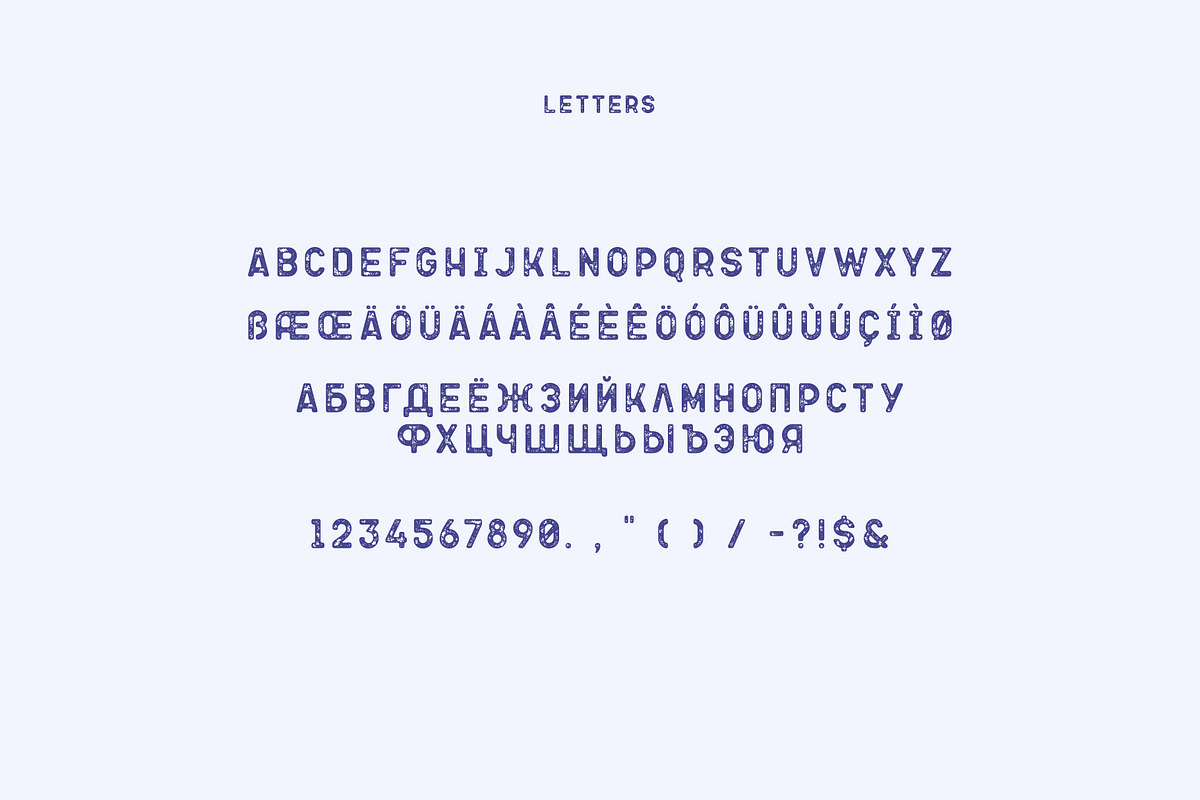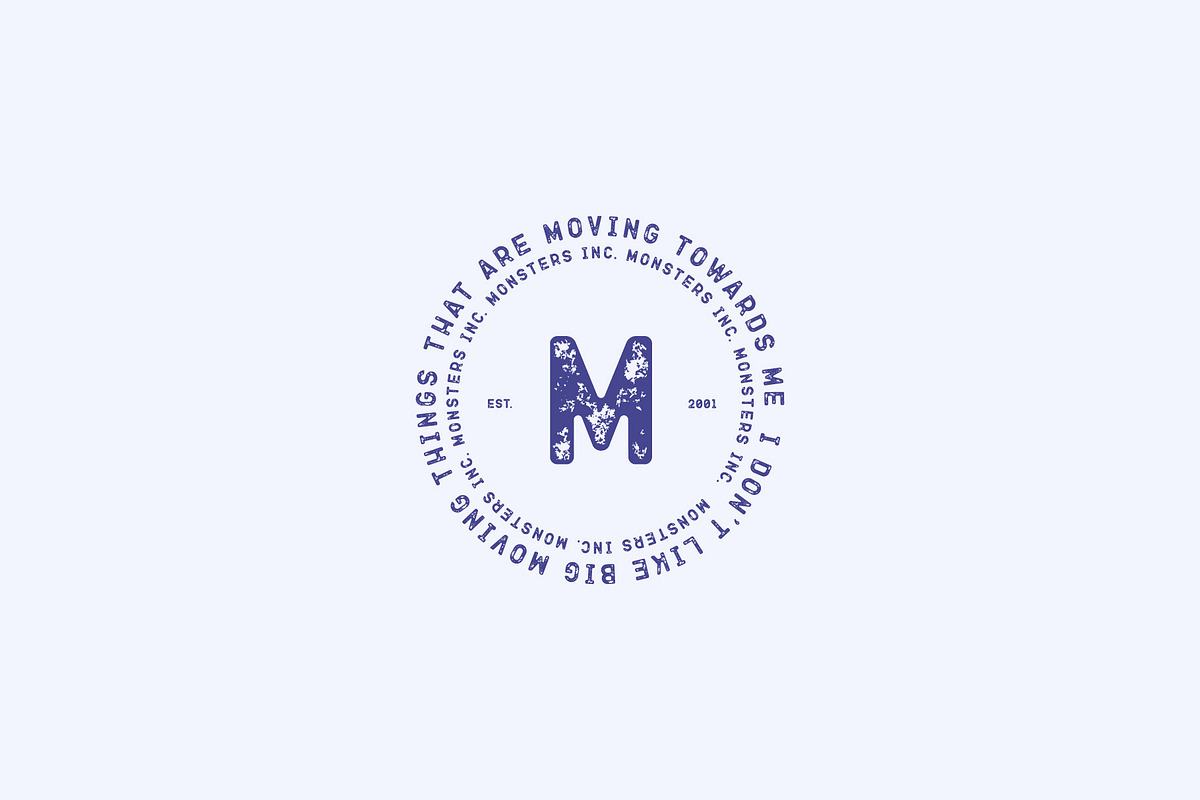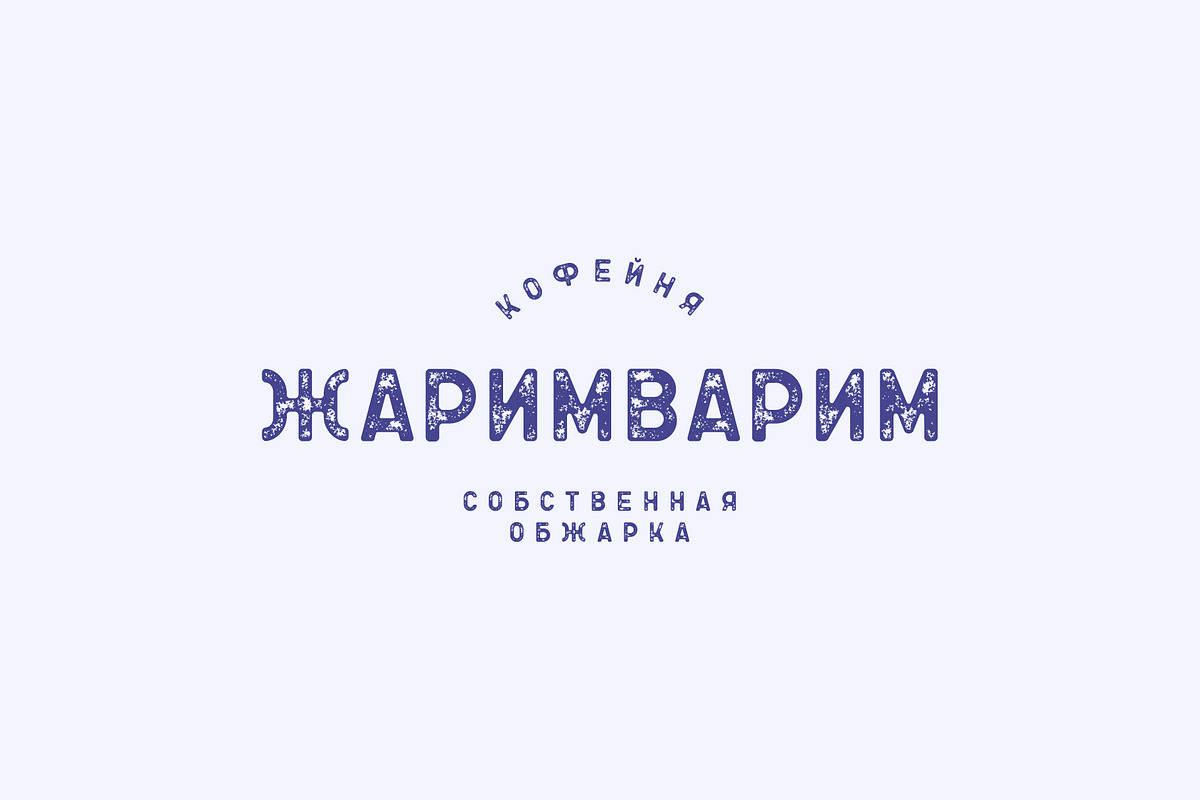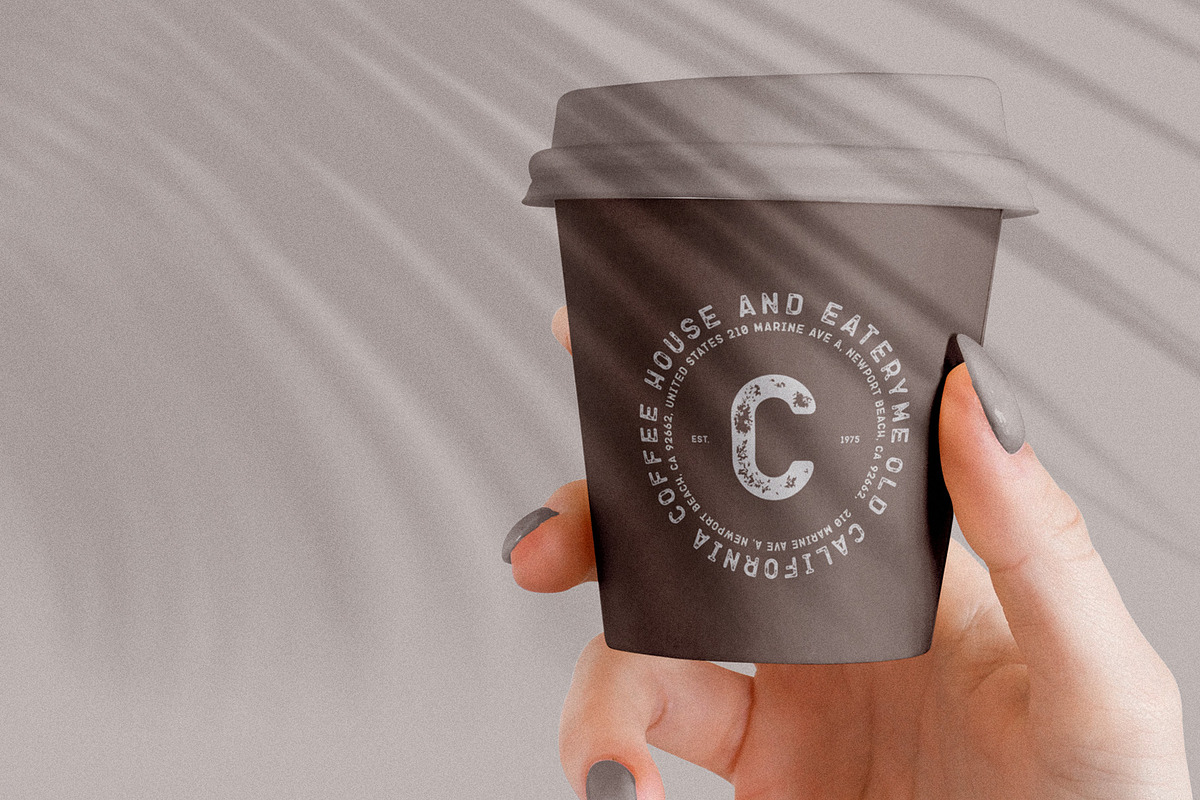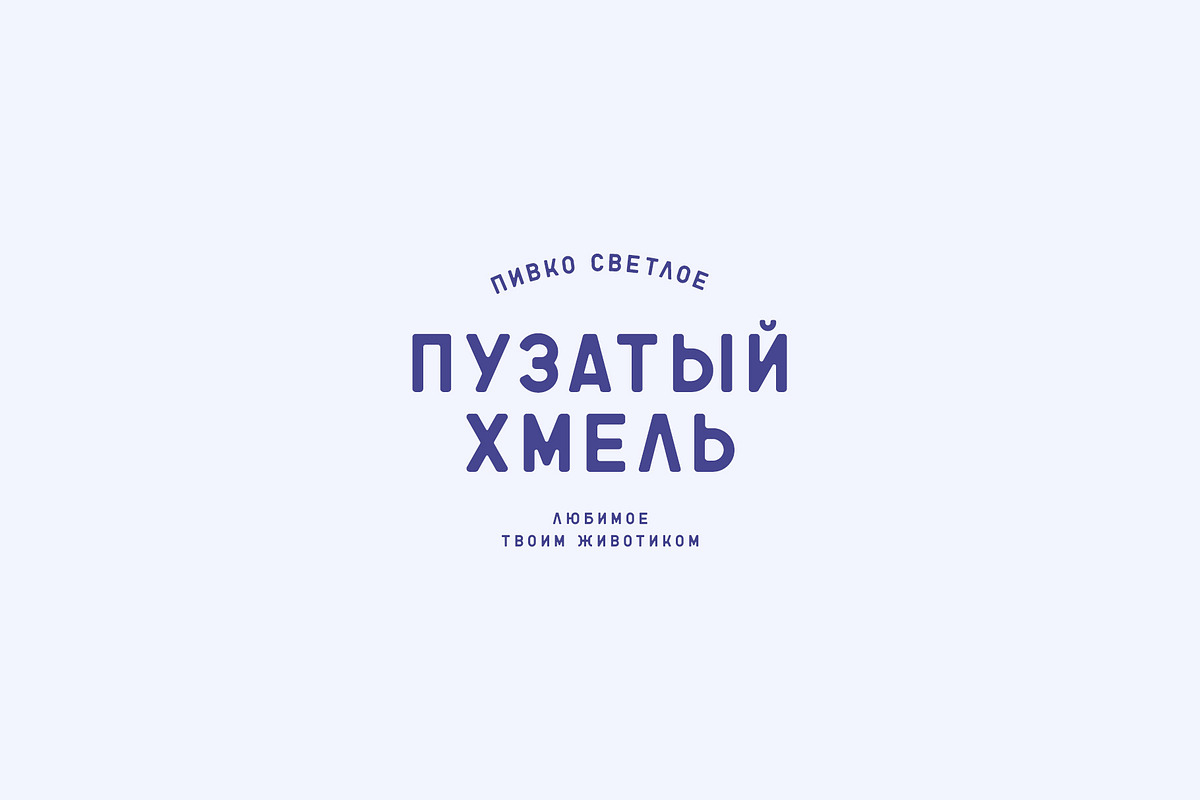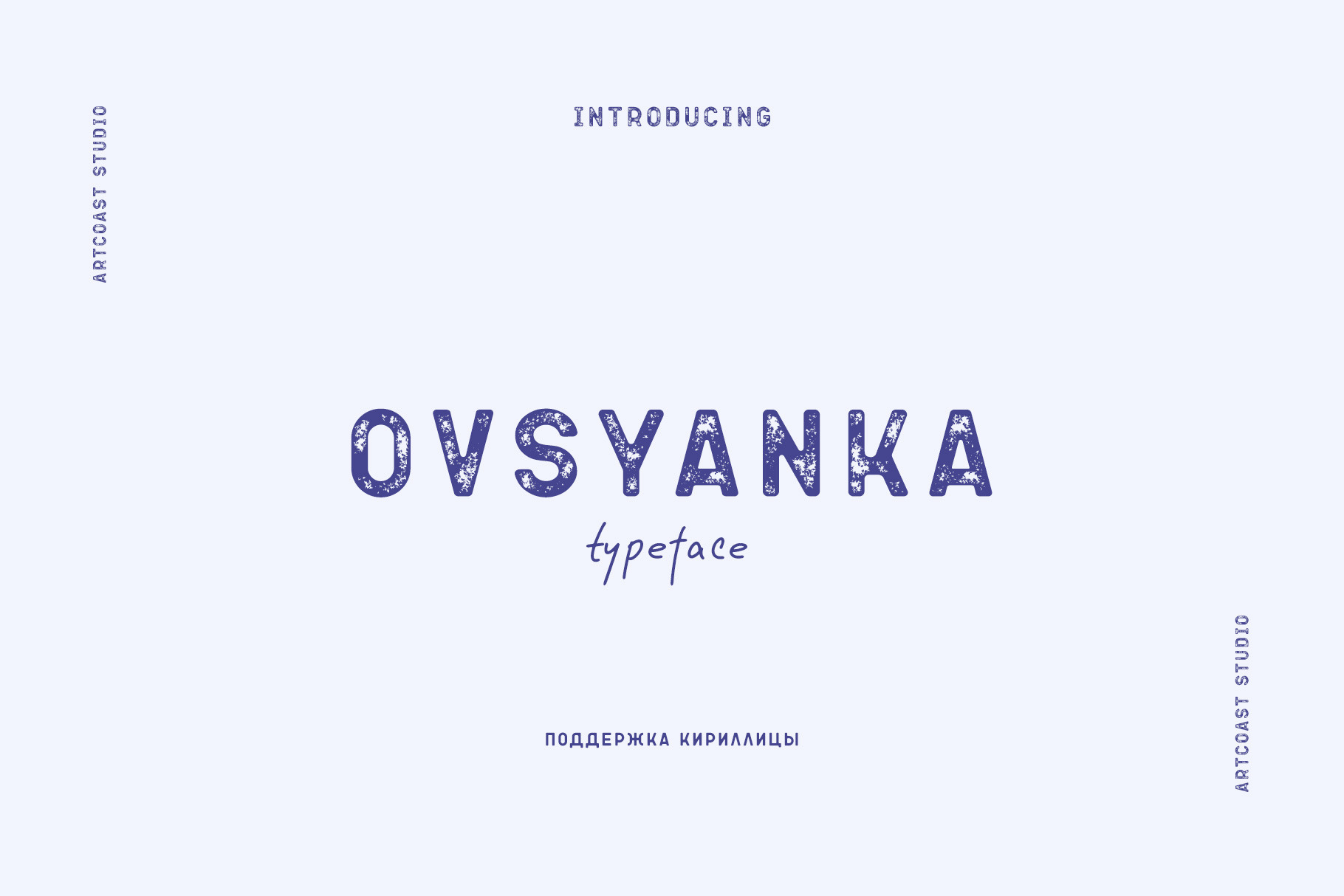
Ovsyanka Rounded Textured Sans Font
Give packaging and brand identities a warm, handmade character with Ovsyanka — a rounded sans serif display family available in clean and distressed styles.
The soft corners keep headlines friendly and approachable, while the Press style adds an authentic worn texture. Use it for food and beverage packaging, café and bakery branding, labels, logos, posters, editorial headlines, merchandise, and social media.
Ovsyanka Regular
Ovsyanka Press Regular
Latin Extended and Cyrillic character support
Food, coffee, craft beer, and bakery packaging
Logos, badges, labels, and brand identities
Posters, headlines, editorial layouts, and merchandise